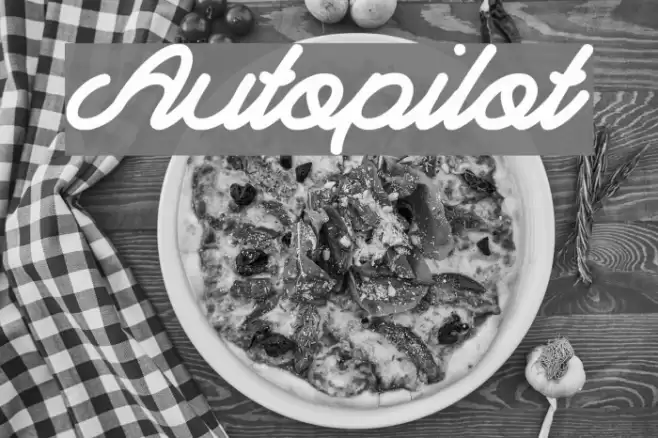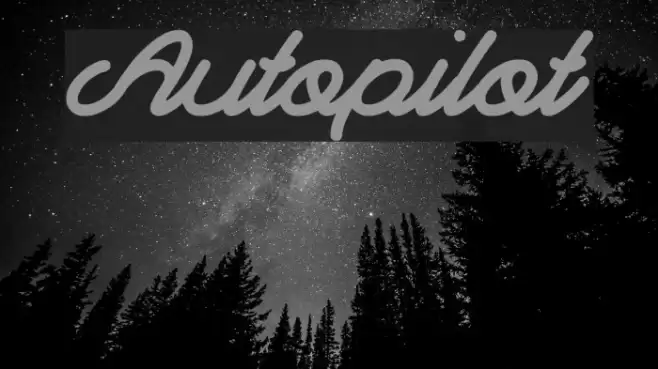
Autopilot Font
Autopilot Description
This font features a flowing, cursive style that mimics elegant handwriting. The characters are connected, creating a seamless and fluid appearance. The uppercase letters maintain a consistent height, while the lowercase letters exhibit slight variations in size, adding to the handwritten feel. The numerals and special characters are designed to match the script's overall aesthetic, ensuring a cohesive look across all text. The strokes are smooth and rounded, with a medium contrast that enhances readability while maintaining a stylish flair.
A cursive, flowing script with elegant, connected characters from Uncategorized fonts.
- Proposed Projects: Ideal for wedding invitations, greeting cards, personal branding, and elegant logo designs.
- Character Spacing: Tight
- Overall Style: Elegant
- Use Case: Logos, Invitations, Personal Branding